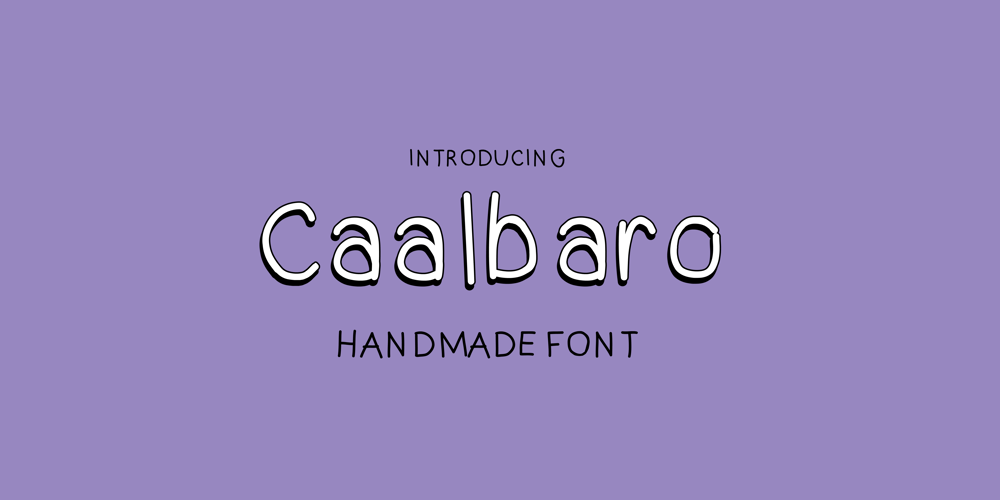
Caalbaro Font Family was designed by Carla Baltuano and published by Baltcub. Caalbaro contains 1 styles and family package options. This handcrafted font captures the organic feel of hand-drawn lettering, offering a personal and authentic touch. Perfect for projects that require a warm, natural aesthetic, it balances playful strokes with legibility, making it versatile for both creative and professional uses.